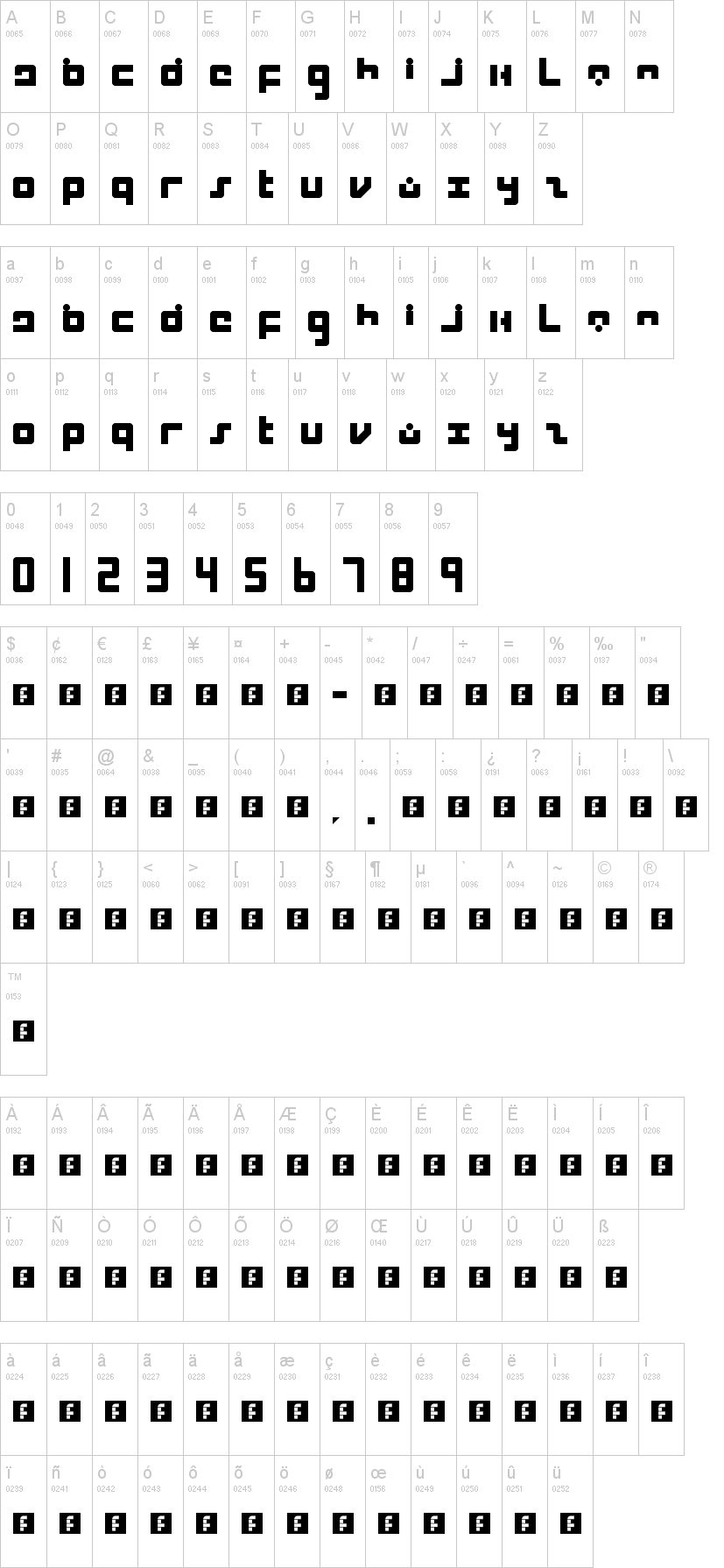
Шрифт Intercorp
"This is a font designed using Eighties Futurism and Multinational Companies as themes. I wanted the font to feel modern and futuristic with minimalist tones, but yet at the same time echoing consumerism and almost 'robotic' brand identity throughout the world."
Part of the first Intercorp series of fonts. Made in 2009.